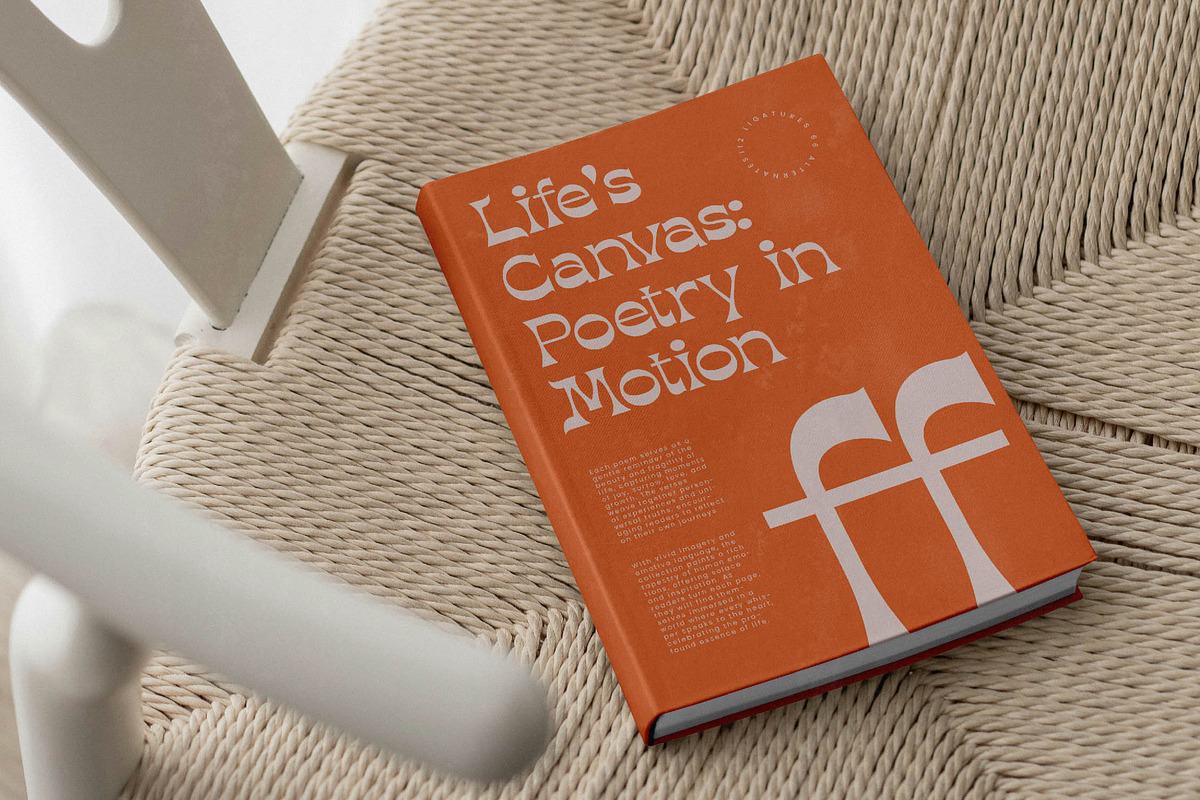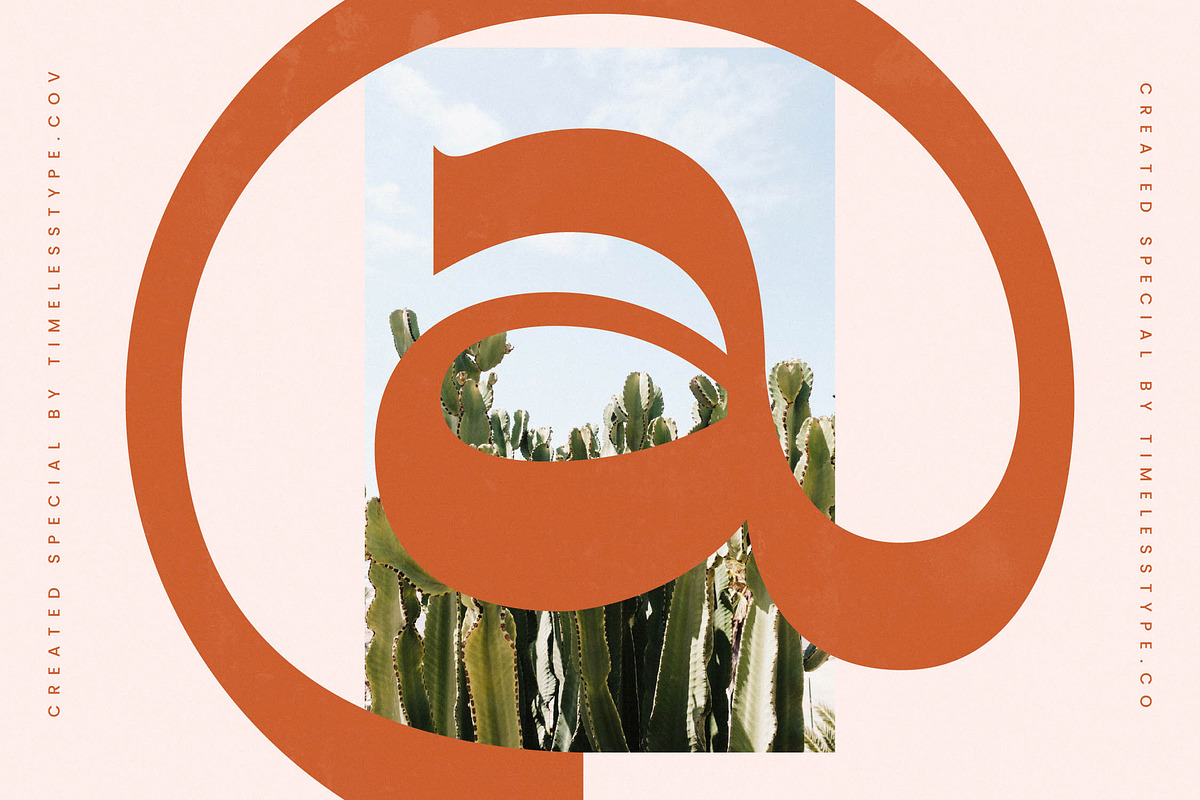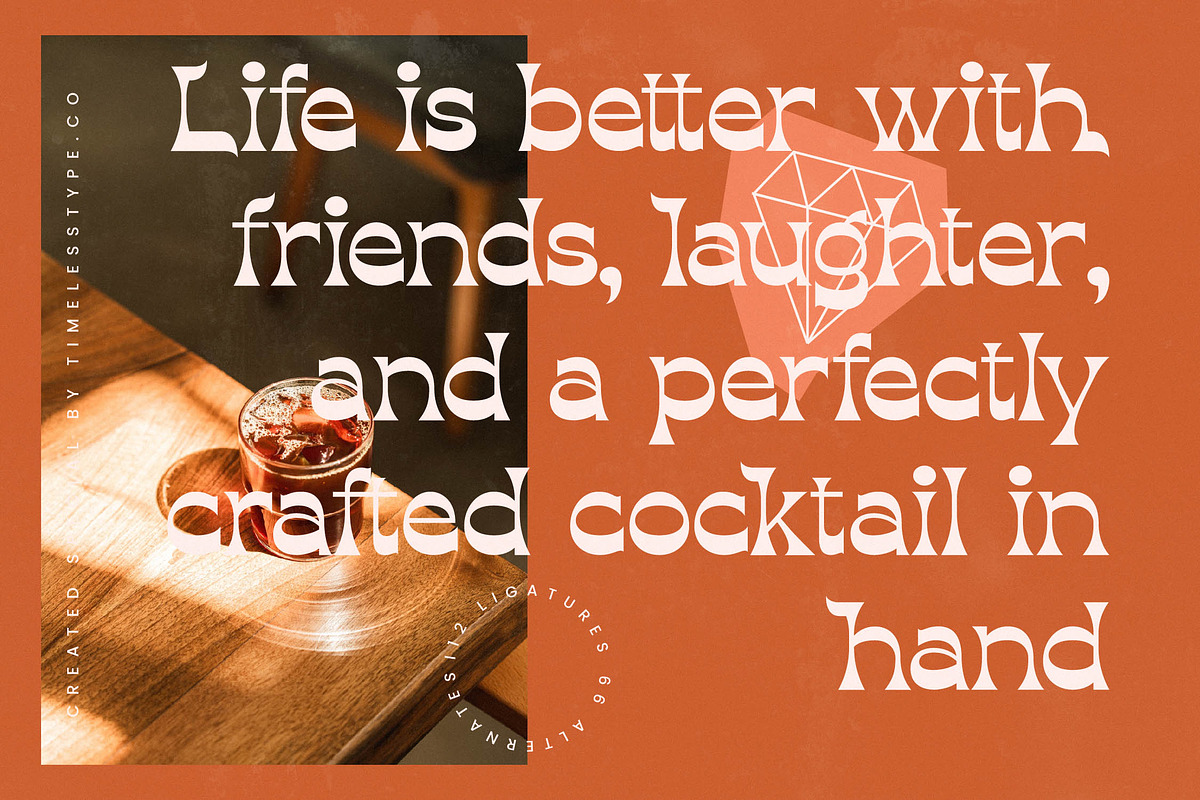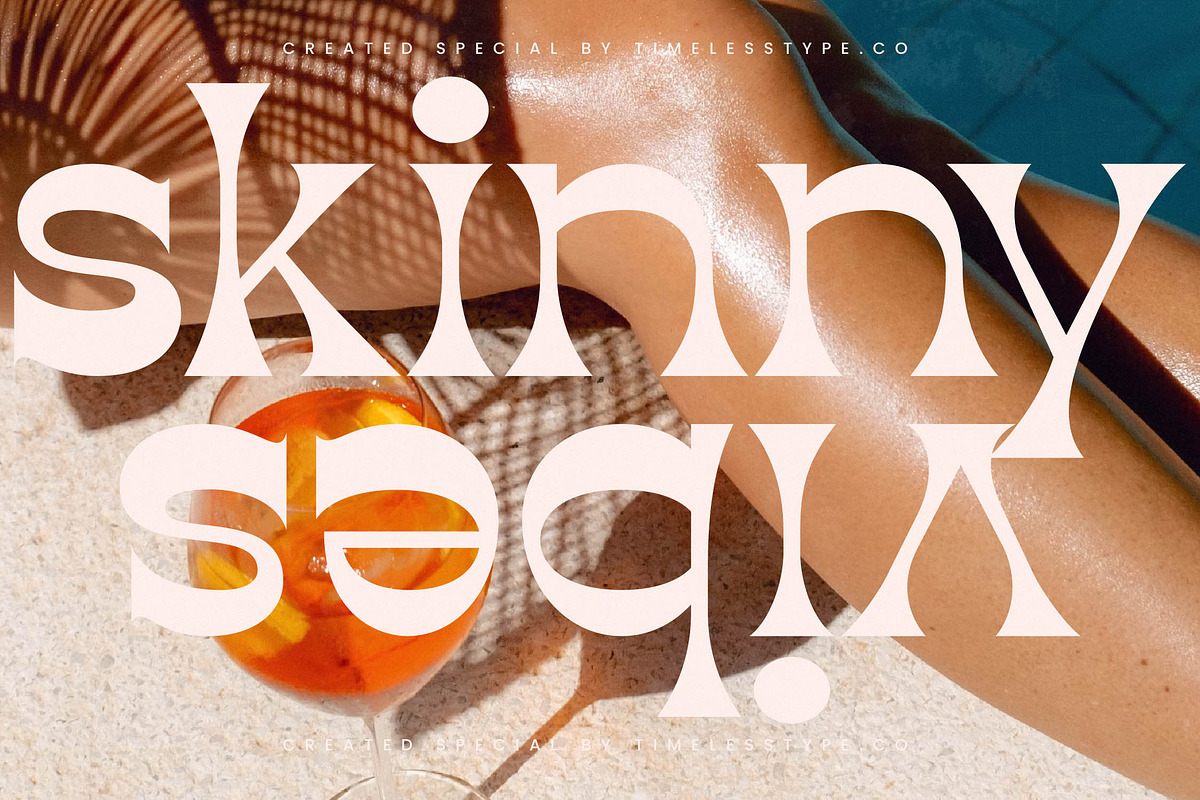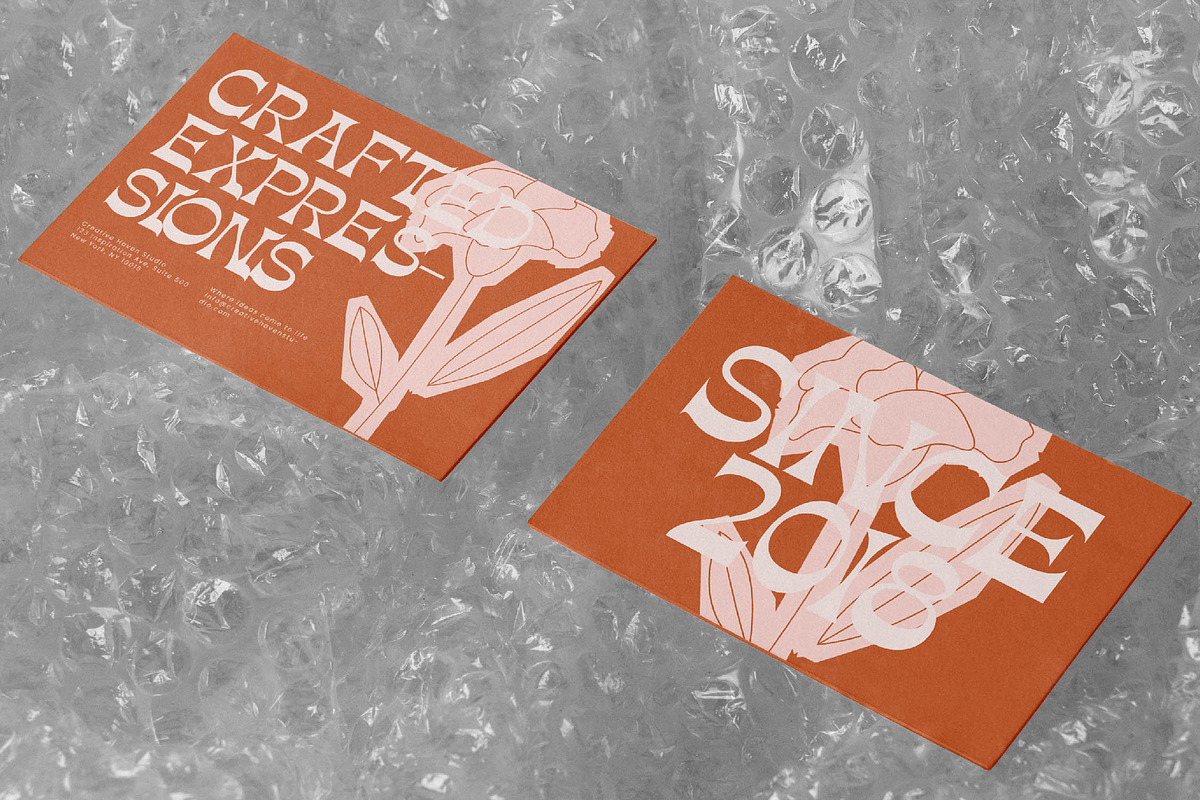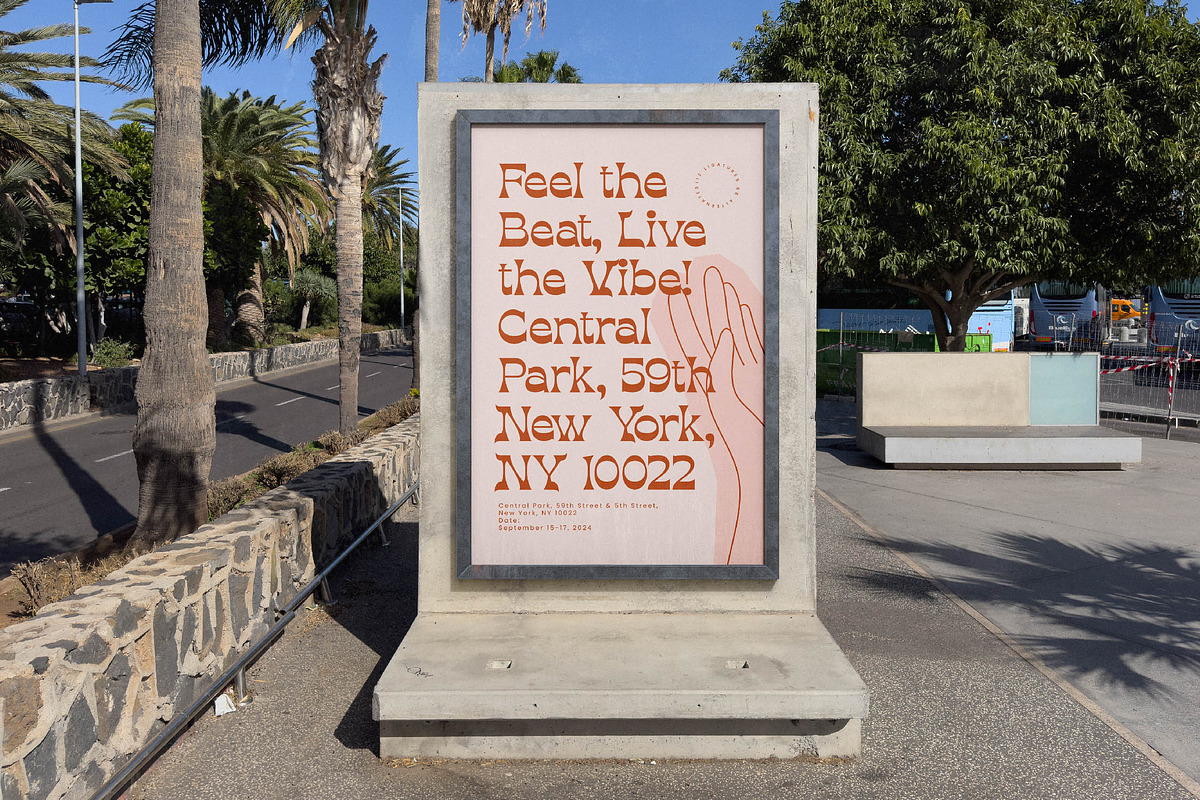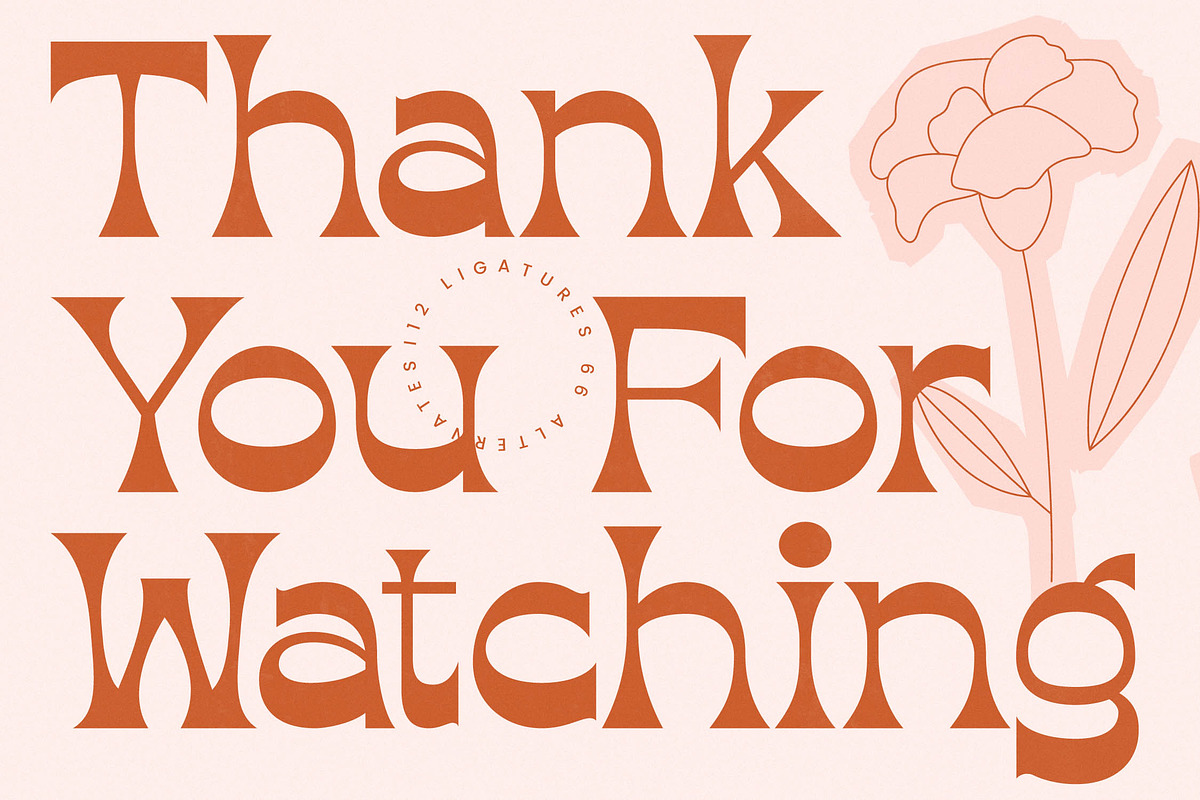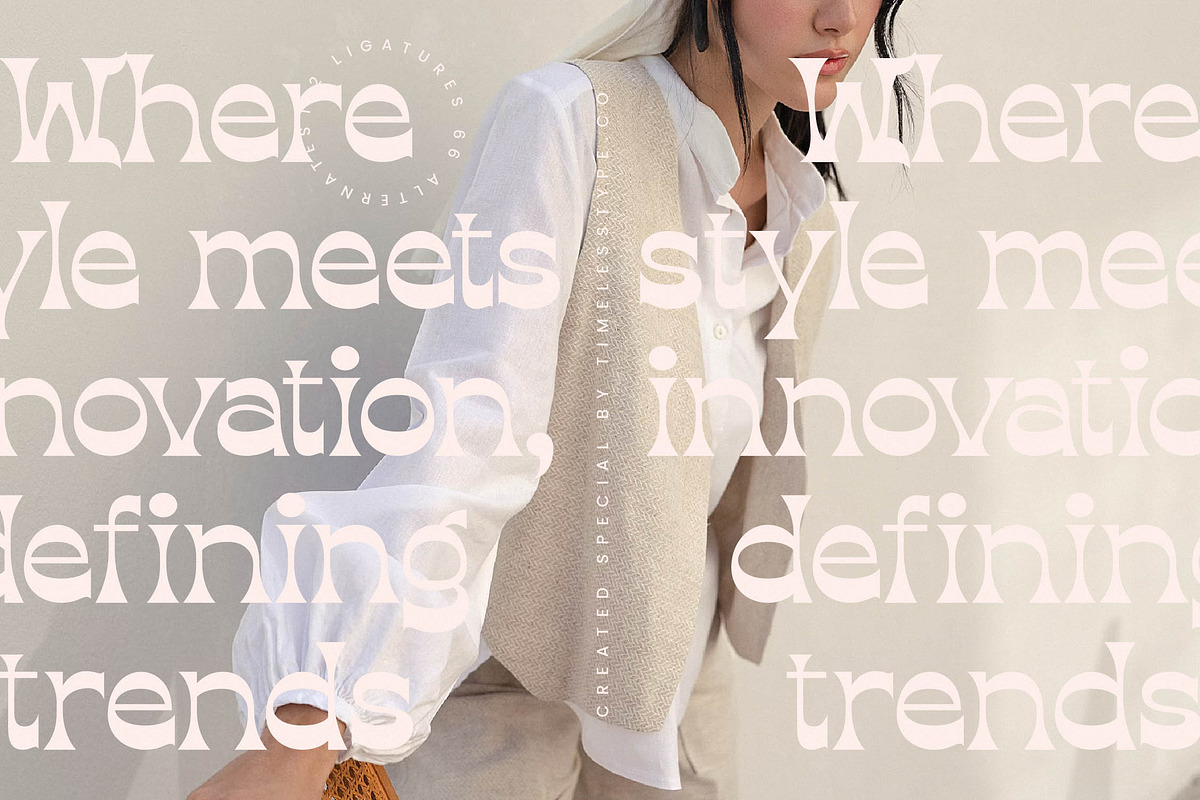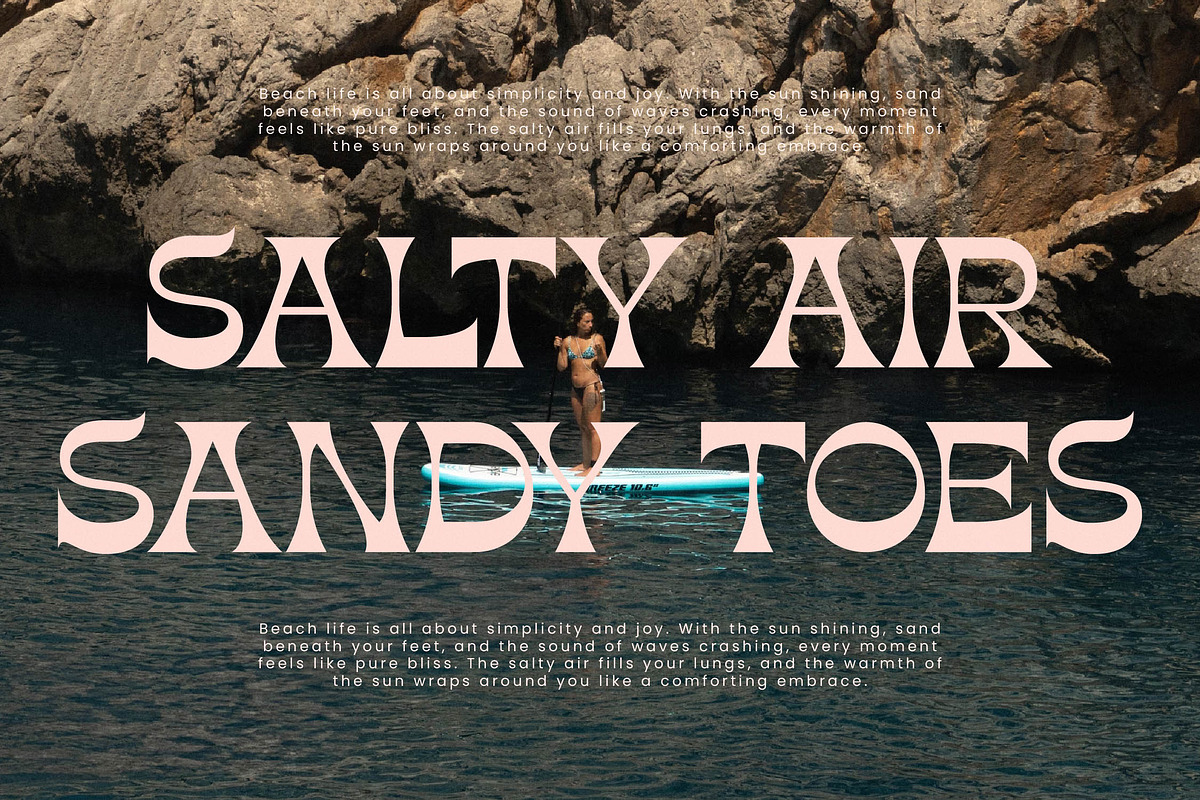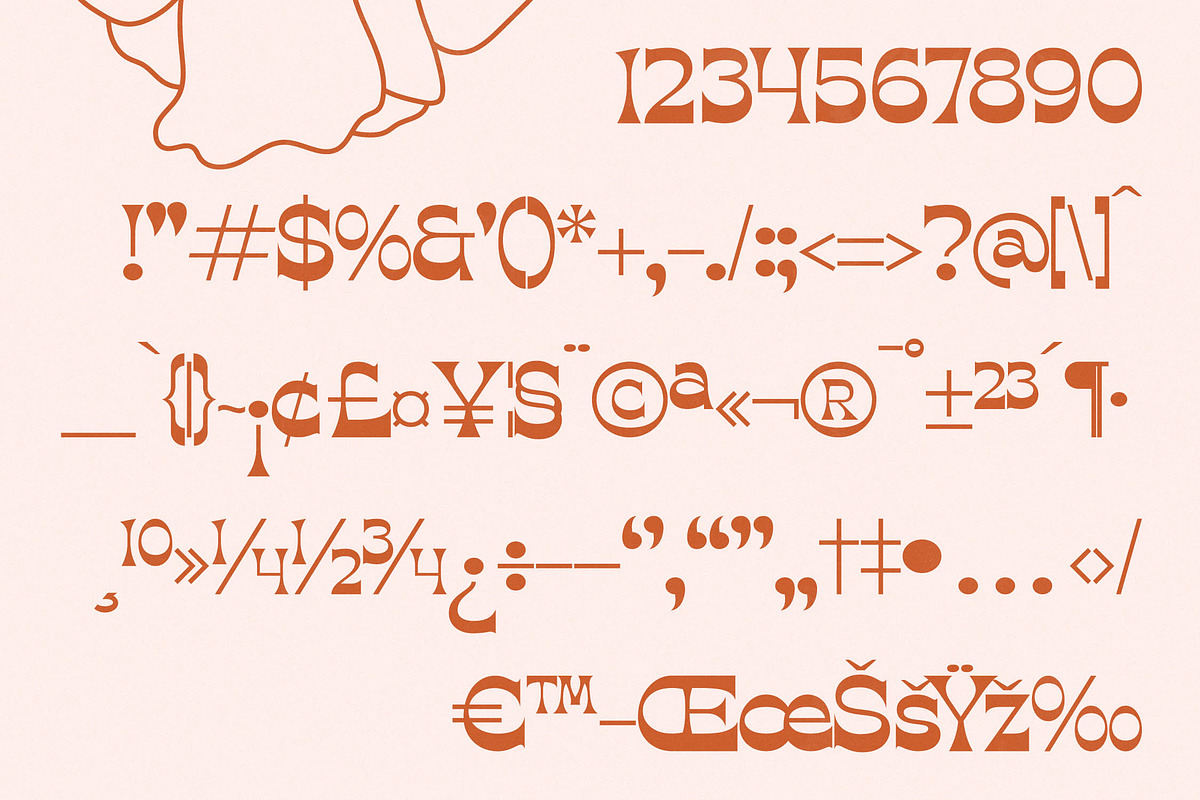
Sizzling Cheesy Modern Serif
Introducing Sizzling Cheesy, a font that dances between classic elegance and a bold, modern edge to redefine your creative vision. It is the perfect statement piece for designers who demand both character and sophistication in every stroke.
Inspired by the warmth of Mediterranean sunsets and the fluid lines of mid-century botanical illustrations, this typeface captures an organic yet structured energy. Its forms reflect the transition from traditional craftsmanship to the sharp, decisive cuts of contemporary digital art.
This modern serif display is designed to command attention with its luxury typography and high-contrast serif construction. Every letter is a testament to editorial font excellence, providing a massive branding impact that feels both timeless and aggressively current.
Perfectly aligned with the modern serif trend, this typeface meets the industry demand for editorial display fonts that offer more than just legibility. It leans into the move toward character-driven typography, making it a vital asset for designers seeking to break away from sterile, minimalist norms.
Transform your next logo design or branding project into a visual masterpiece with a font that thrives in high-stakes environments. It is exquisitely suited for editorial layouts, luxury packaging, romantic wedding stationery, and the fast-paced world of fashion marketing.
Unlock limitless creative potential with a rich library of ligatures and alternates that allow for custom-tailored text compositions. The set is fully equipped with multilingual support and international characters, ensuring your message resonates globally without technical boundaries.
- Ligature 12 Alternate 66